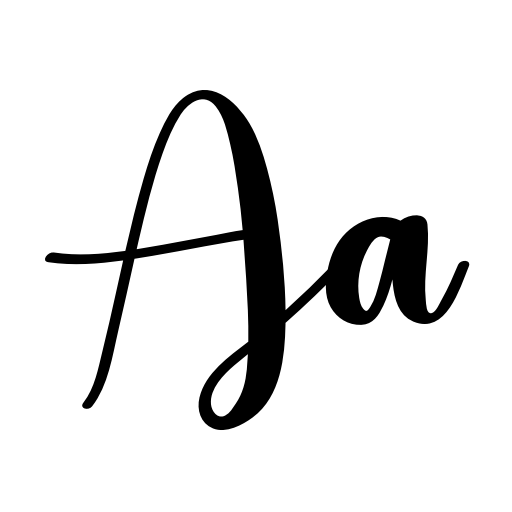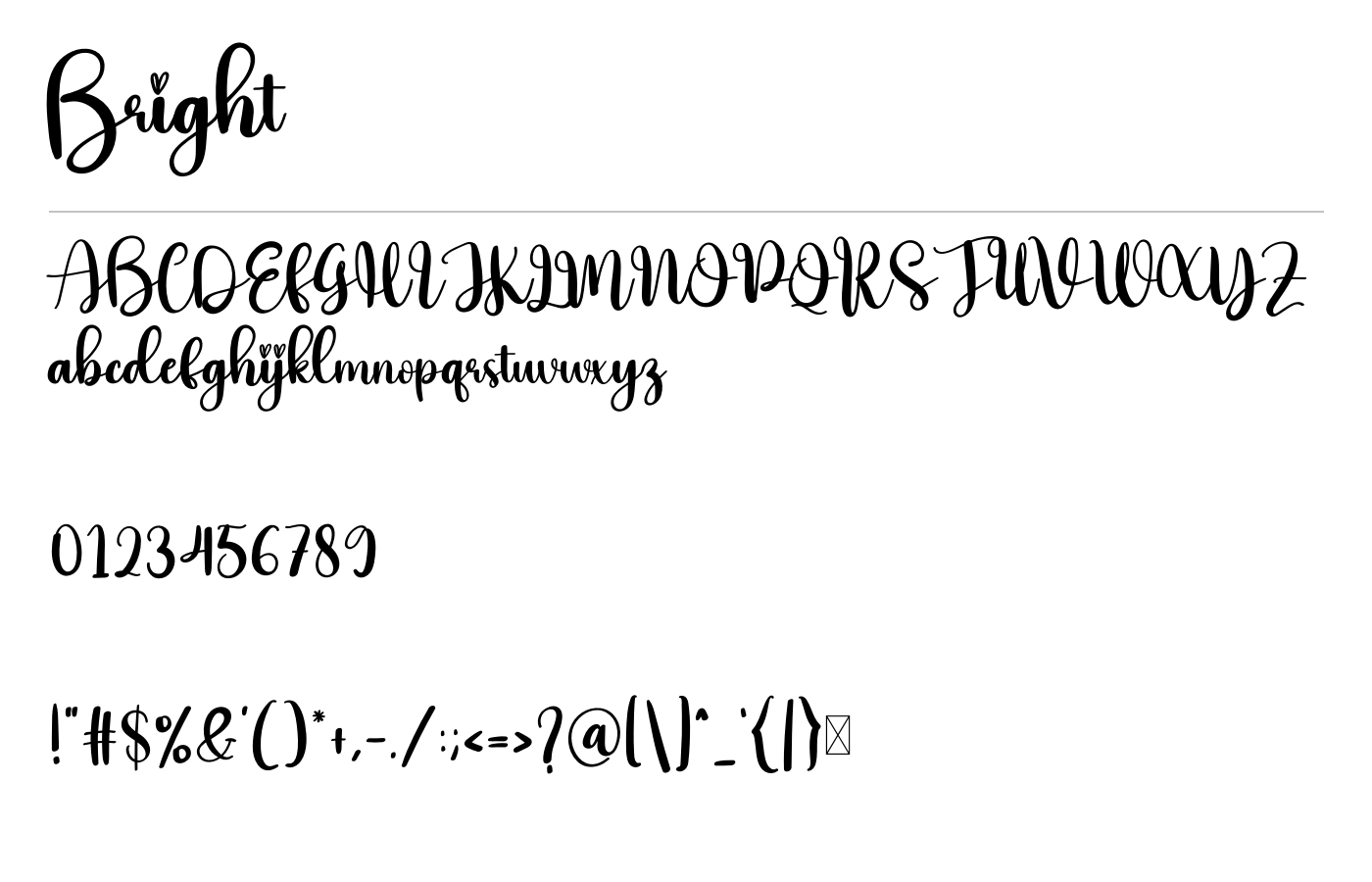
Bright Font is a playful and charming script typeface with smooth, flowing curves and whimsical details like heart-shaped dots that add a friendly, handwritten feel. Its balanced stroke weight and casual elegance make it ideal for creative branding, invitations, and any design needing a warm and inviting personality. This font works wonderfully in logos, packaging, and headlines where a personal and approachable style is desired.
Bright Font